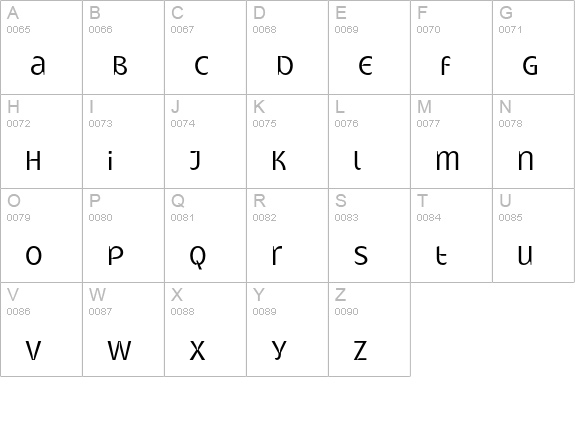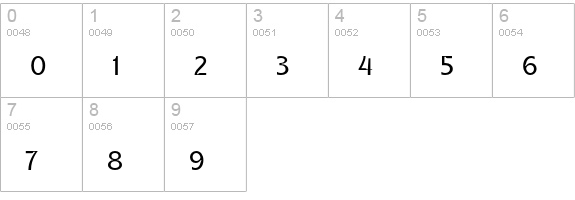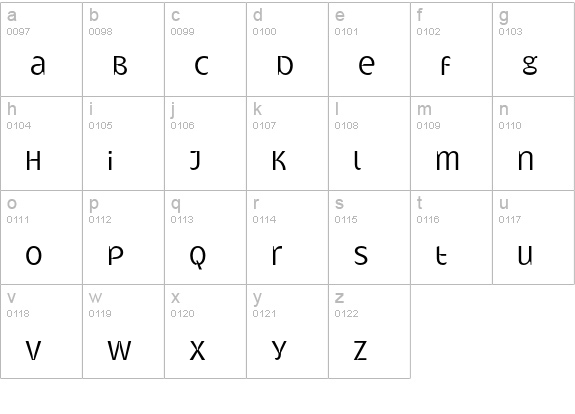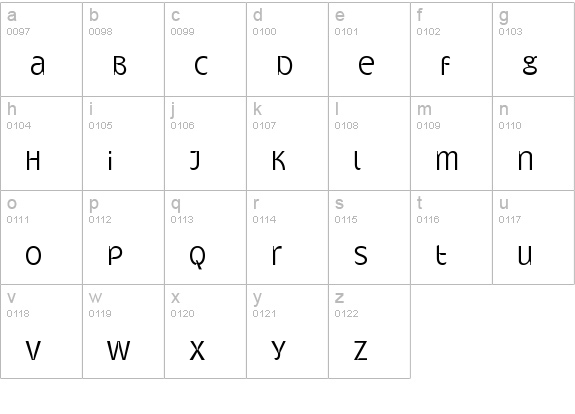
Gatometrix Font Details
Gatometrix font is a stunning typeface that effortlessly combines modernity with elegance. Its sleek and sophisticated design makes it the perfect choice for a wide range of projects, from branding and advertising to digital media and print materials. With its clean lines and sharp edges, Gatometrix exudes a sense of professionalism and refinement. Each letter has been meticulously crafted to ensure maximum legibility and visual impact. The geometric shapes and intricate details create a unique and captivating look that will instantly draw attention. What sets Gatometrix font apart is its versatility. It is equally suited for both headlines and body text, allowing you to create cohesive and visually appealing designs. The wide range of weights and styles available ensures that you can find the perfect fit for any project. One of the most appealing aspects of Gatometrix font is that it is free. Yes, you read that right - this remarkable font is freely available to download at FontsMarket.com. This means that you can enhance your designs with this exceptional typeface without having to worry about any licensing fees or restrictions. Whether you are a professional designer looking to add a touch of sophistication to your work or a hobbyist seeking to elevate your creative projects, Gatometrix font is the ideal choice. Its modern and elegant aesthetic, combined with its free availability, makes it a must-have in your font collection. So don't miss out on the opportunity to enhance your designs with Gatometrix font. Visit FontsMarket.com now and enjoy the freedom of creating stunning visuals with this remarkable typeface.